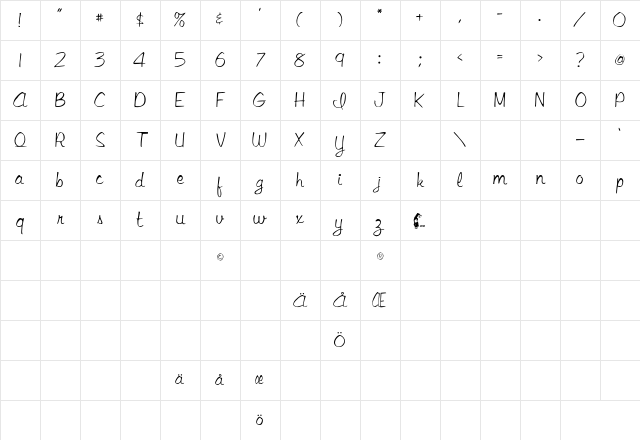
LibbyScript Regular
LibbyScript Family
LibbyScript Regular
Complete LibbyScript Regular glyph index. Displaying only characters natively supported by LibbyScript Regular font.
Design Context for LibbyScript
LibbyScript flows with the natural rhythm of handwritten lettering, making it ideal for designs that call for warmth and personal expression.
Font Pairing: Combine LibbyScript with a simple geometric sans for maximum contrast - the tension between flowing curves and clean structure is a classic typographic pairing.
Pro Tip: Use LibbyScript for short runs of text - names, titles, or taglines. Extended body copy in script faces tires the eye quickly.